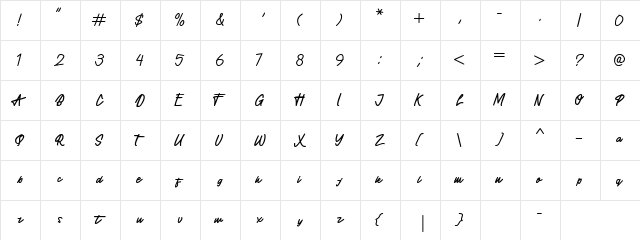
Created Regular
| Designer | Ridwan Fadilah |
Design Context for Created Typeface
Created is a composed and adaptable typeface that performs quietly and consistently across a wide range of design contexts.